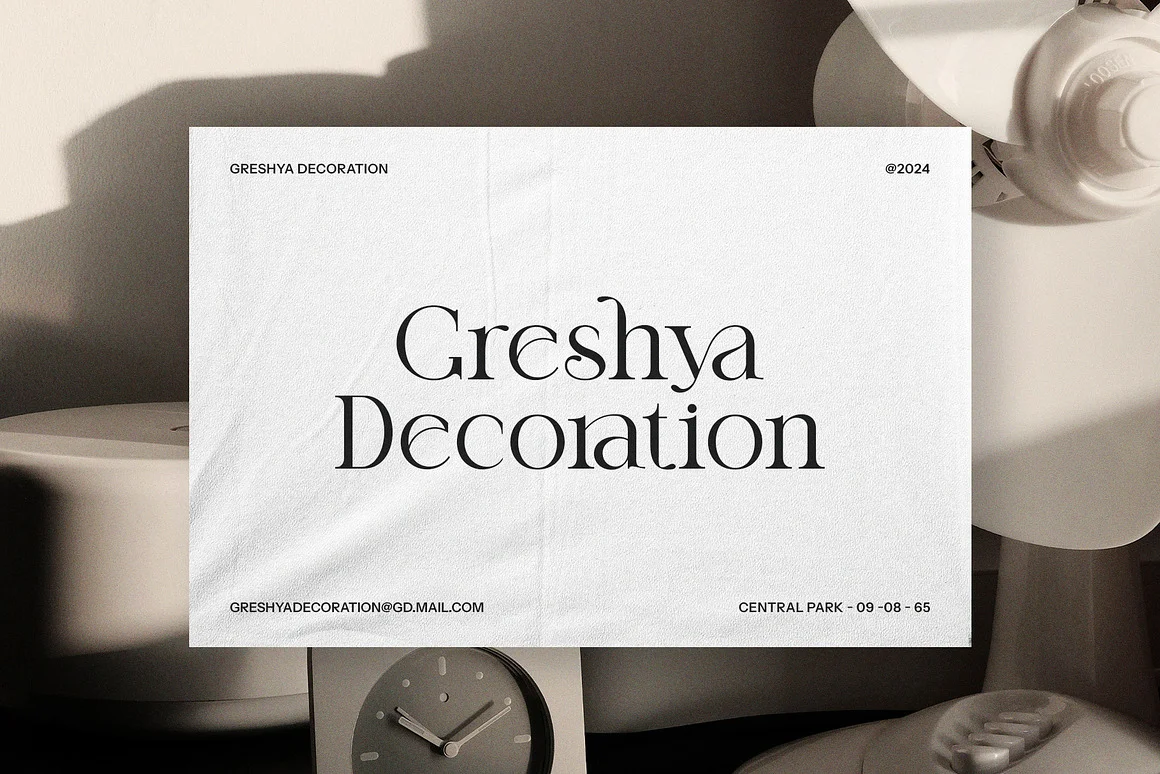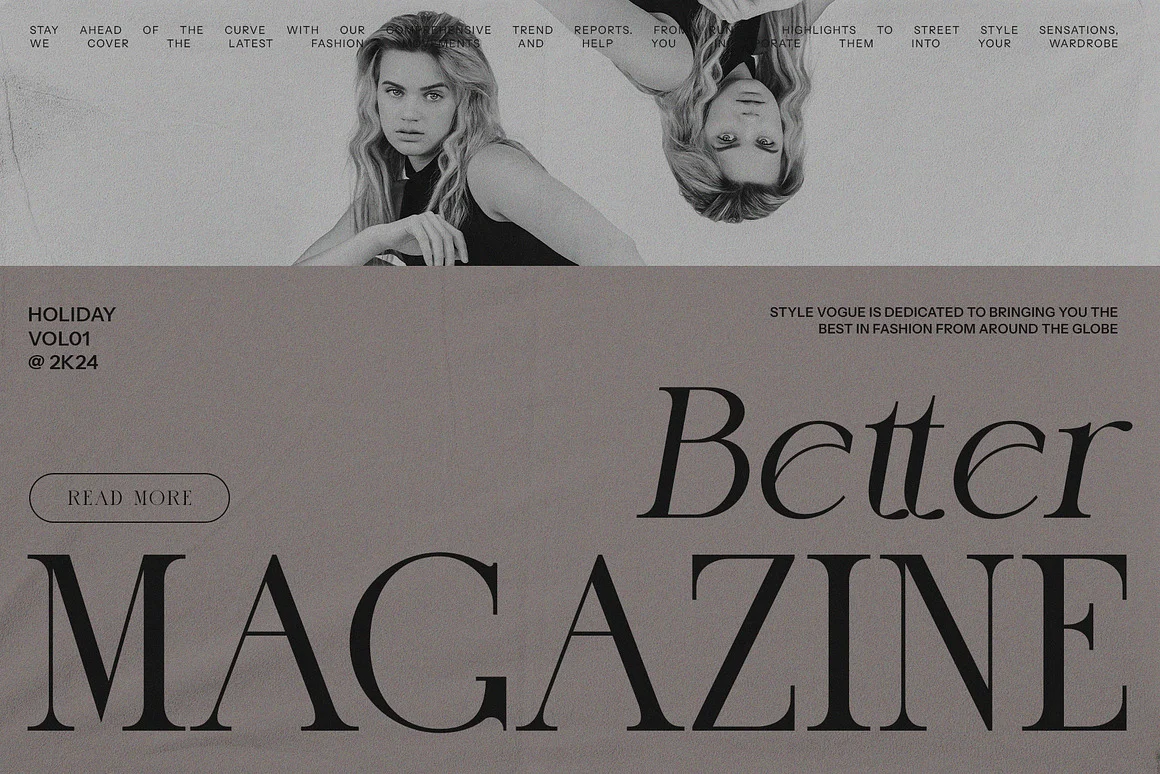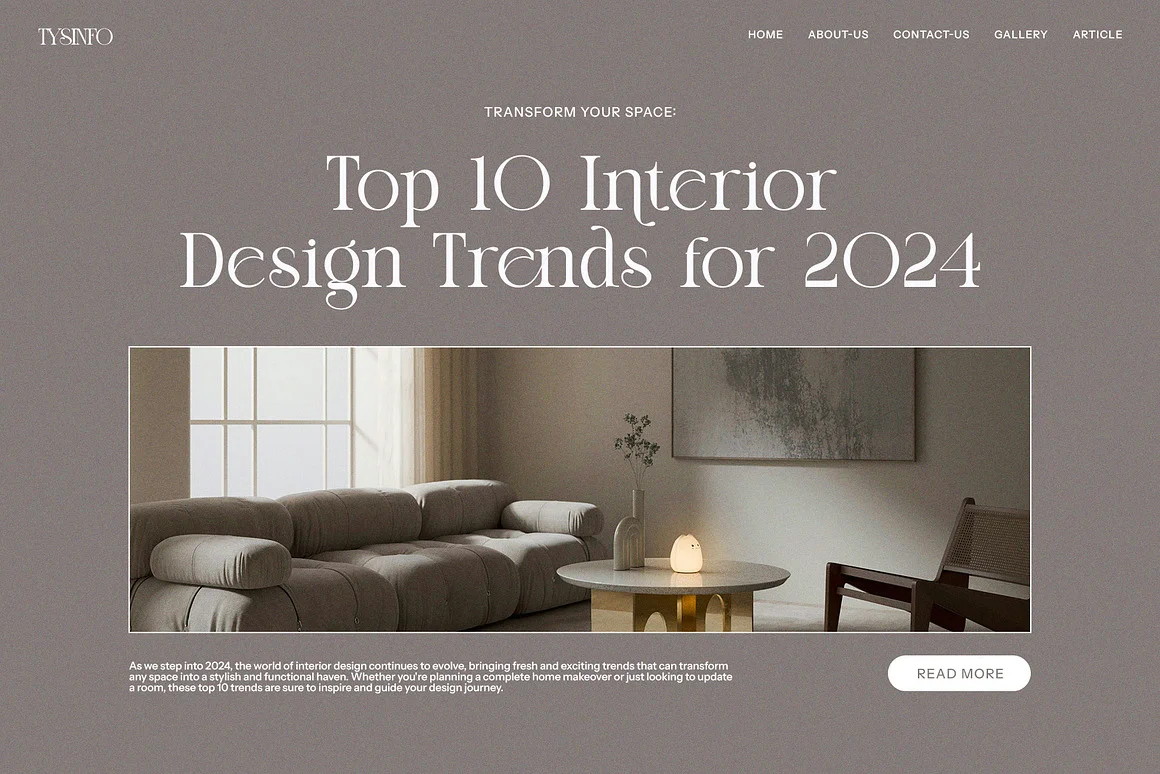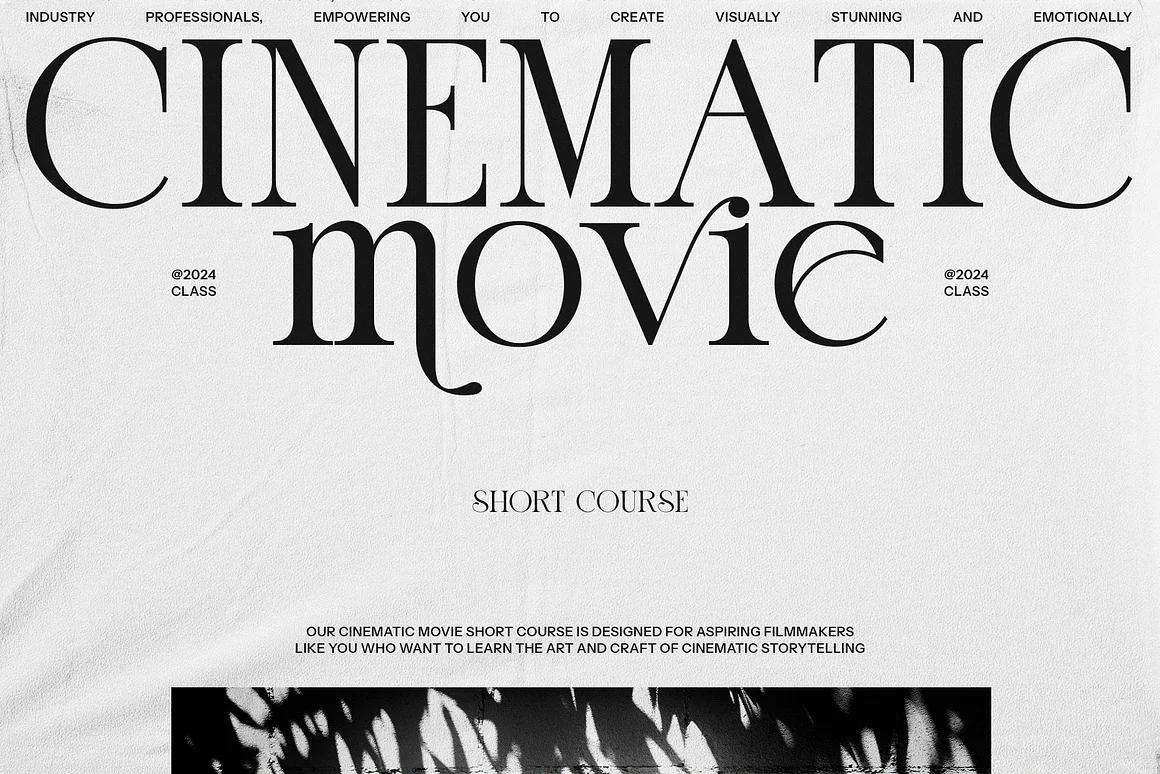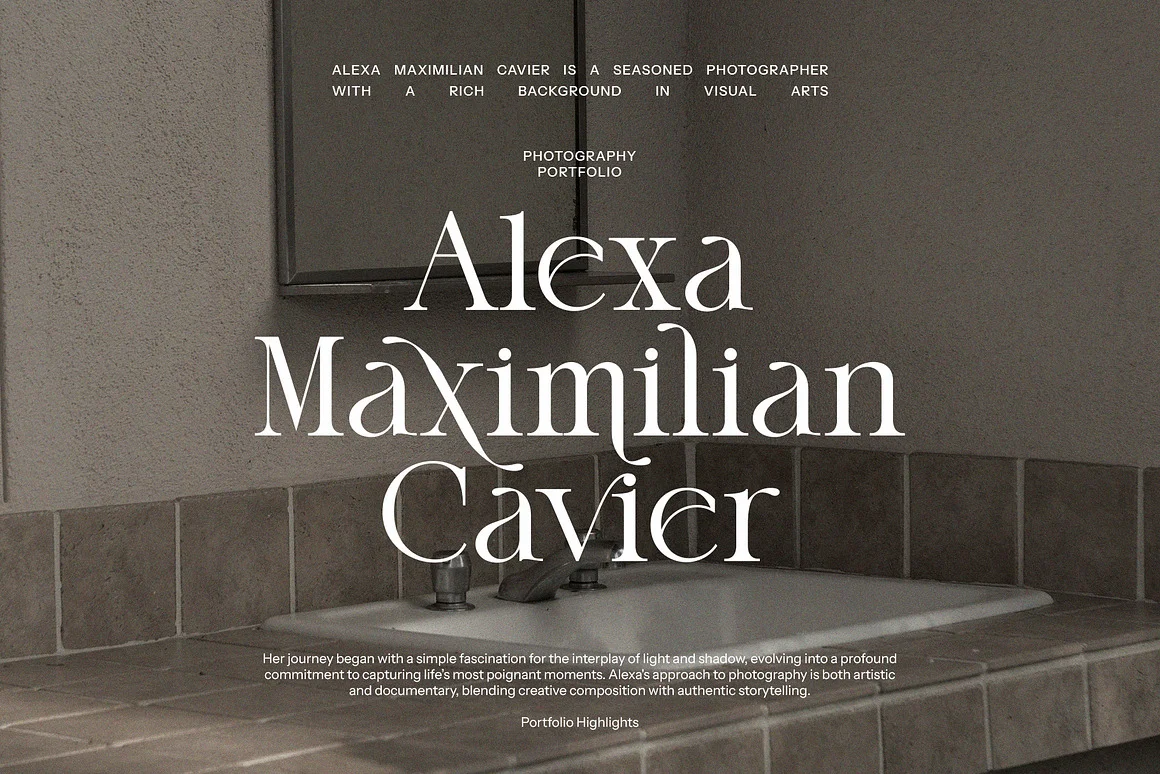
Jagiko Elegant Ligature Serif Font
Jagiko Elegant Ligature Serif brings a confident, polished presence to any design, from business materials to creative campaigns.